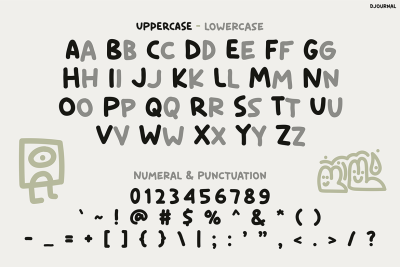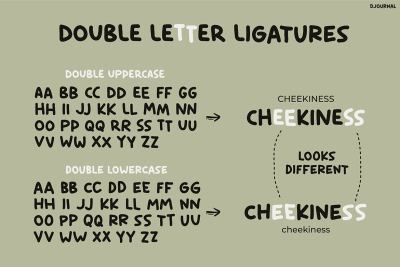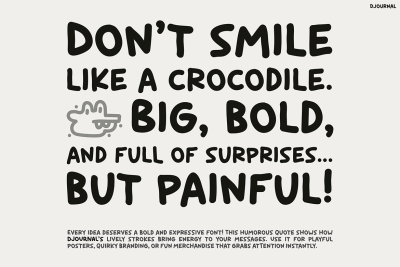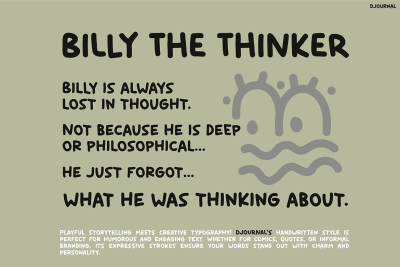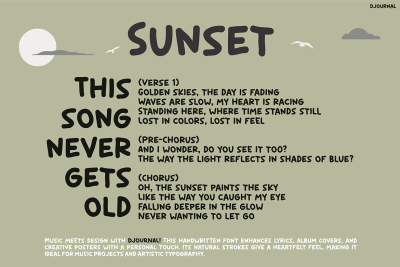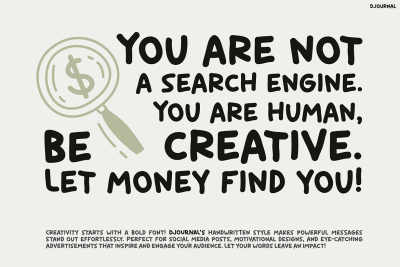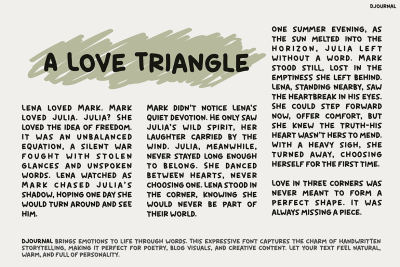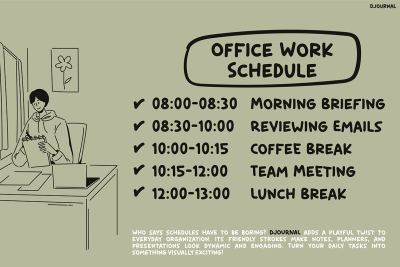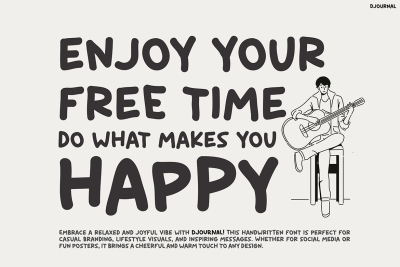
Handwriting Font Djournal: Fun, Friendly, and Full of Character
Handwriting Font Djournal is a bold and expressive typeface that effortlessly captures the charm of casual handwriting. With its lively strokes and playful curves, it adds warmth to any design. Whether you need a font for branding, digital content, or creative projects, Djournal creates a natural, handwritten feel that stands out.
Inspired by personal journaling, informal notes, and retro doodles, Djournal blends creativity with readability. Its rounded letterforms provide a friendly and approachable look. Because of this balance, it works well for projects that require both playfulness and professionalism. Furthermore, every letter flows naturally, ensuring an authentic and engaging effect.
Beyond its charm, Djournal adapts effortlessly to both print and digital platforms. It brings a distinctive touch to social media graphics, posters, planners, and branding materials. Additionally, the organic strokes add a casual yet polished vibe, making messages feel personal and engaging. Designers, content creators, and small businesses will find its versatility incredibly useful.
For those seeking a typeface that radiates warmth and creativity, Djournal is an excellent choice. Not only does it have a playful appearance, but it also maintains a polished look, making it perfect for both personal and professional use.
Who Should Use Handwriting Fontย Djournal?
โ Creative Designers & Illustrators โ Perfect for branding, posters, and artistic projects, Djournal enhances visuals with a handcrafted touch.
โ Planners, Journaling Enthusiasts & Organizers โ Adding this font to planners, to-do lists, and bullet journals makes organization feel more fun and visually engaging.
โ Content Creators & Social Media Influencers โ With Djournalโs quirky appeal, eye-catching Instagram posts, YouTube thumbnails, and blog content become even more dynamic.
โ Lifestyle & Handmade Brands โ Small businesses and boutique brands can use Djournal for logos, packaging, and product labels, creating a welcoming feel that attracts customers.
โ Childrenโs Books & Educational Materials โ Thanks to its soft, rounded strokes, this font is ideal for book covers, worksheets, and kid-friendly designs.
โ Marketing & Advertising Professionals โ Whether designing marketing campaigns, creative packaging, or promotional materials, Djournal delivers an engaging and memorable style.
Final Thoughts
More than just a typeface, Handwriting Font Djournal is an expression of personality and creativity. It adds warmth, energy, and authenticity to any project, from branding to social media. If youโre searching for a font that feels inviting, playful, and full of life, Djournal is the perfect choice!